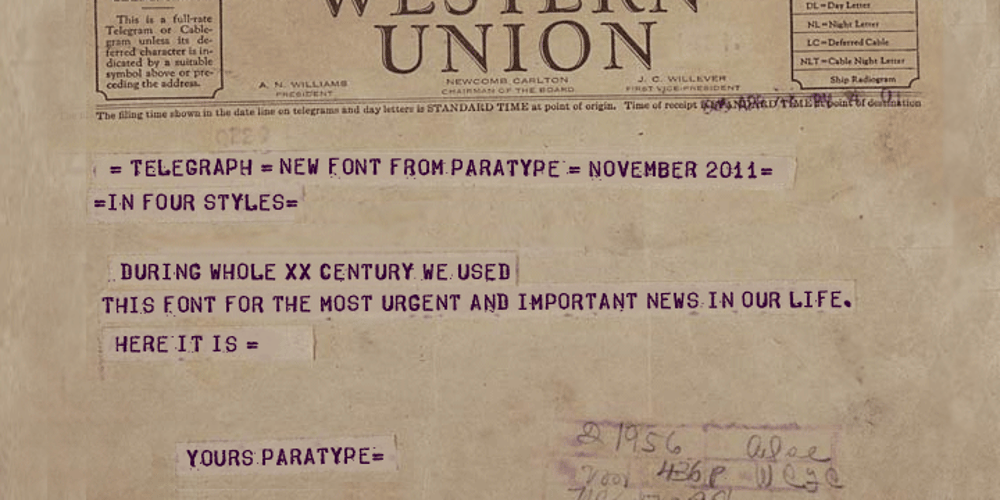
Telegraph
Telegraph font
Telegraph Font Family was designed by Gennady Fridman and published by ParaType. Telegraph contains 4 styles and family package options. Telegraph font family was developed on the base of scanned images of telegraph printing machines. It consists of 4 styles: Natural is the most close to original scans with all defects of positioning and dirty print on the rough telegraph paper tape; Clean style uses cleaned contours, but keeps disorder in positioning; Straight is straightened along base line; Clean Straight style has self-explaining name. The fonts can be used for imitation of wire texts and in advertising and display typography. Upgraded version with extended character set was released in 2011 by ParaType. Designer Gennady Fridman.